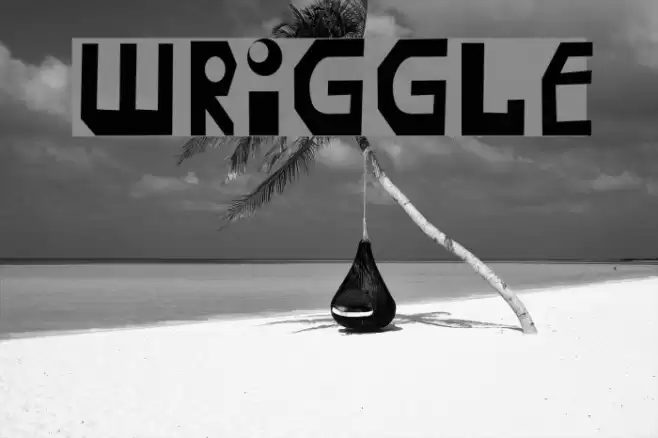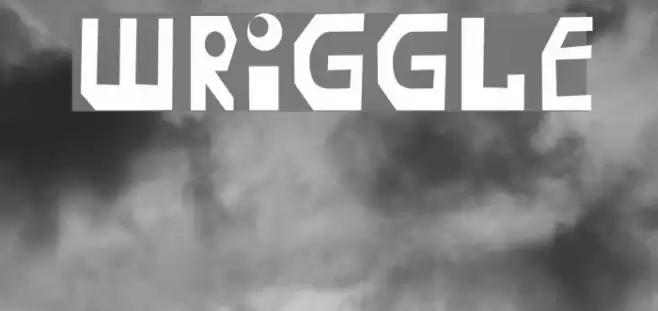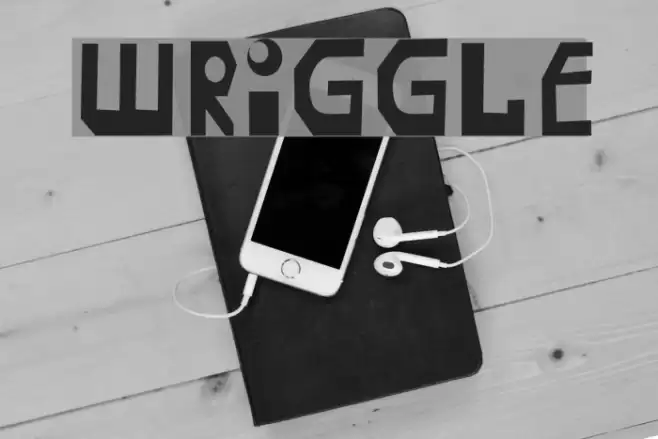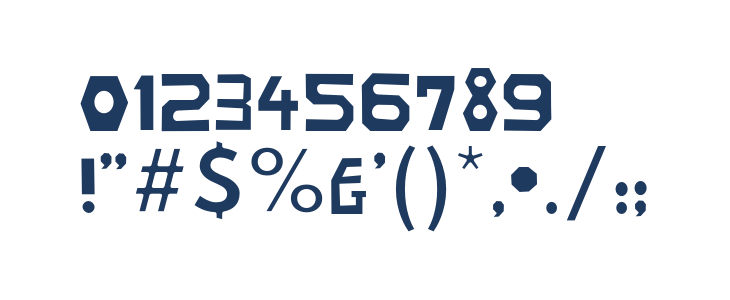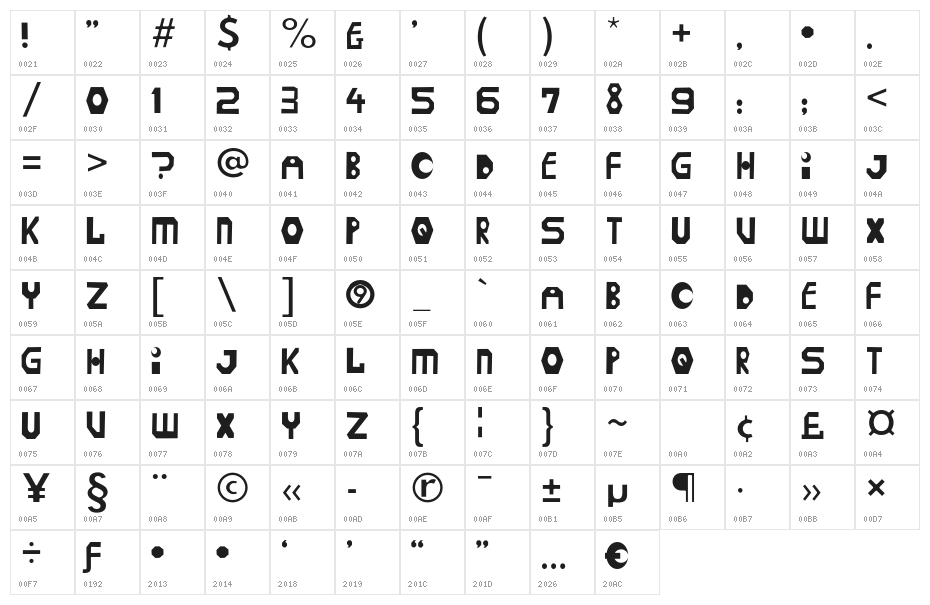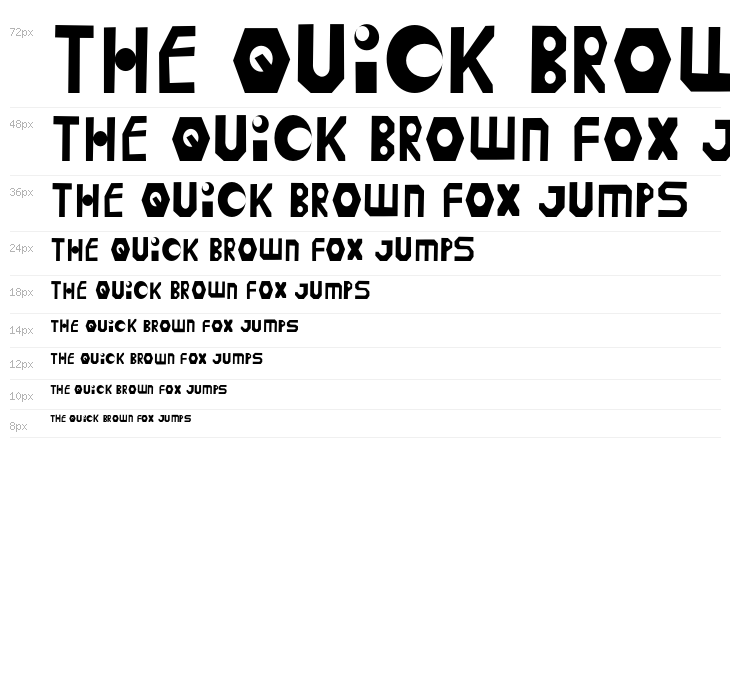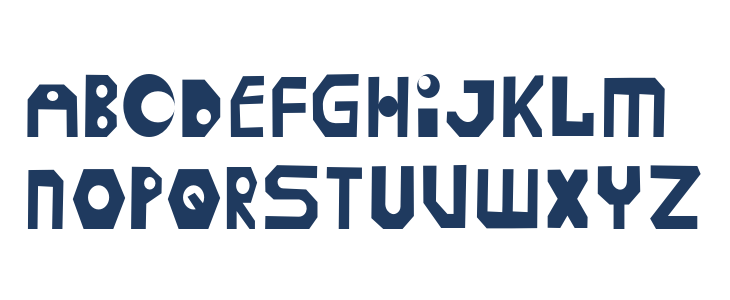
Wriggle Font
Wriggle Description
This font exhibits a bold and geometric style with a playful twist. Each character is crafted with sharp angles and unique cutouts, giving it a distinctive and modern appearance. The uppercase and lowercase letters maintain a consistent design language, while the numbers and special characters complement the overall aesthetic. The font's boldness and unique character shapes make it stand out, suitable for creative and eye-catching designs. Its geometric nature is balanced with a touch of whimsy, making it versatile for various applications.
A bold, geometric font with playful cutouts and sharp angles from Uncategorized fonts.
- Proposed Projects: Ideal for branding, poster design, album covers, and any project requiring a modern and distinctive look.